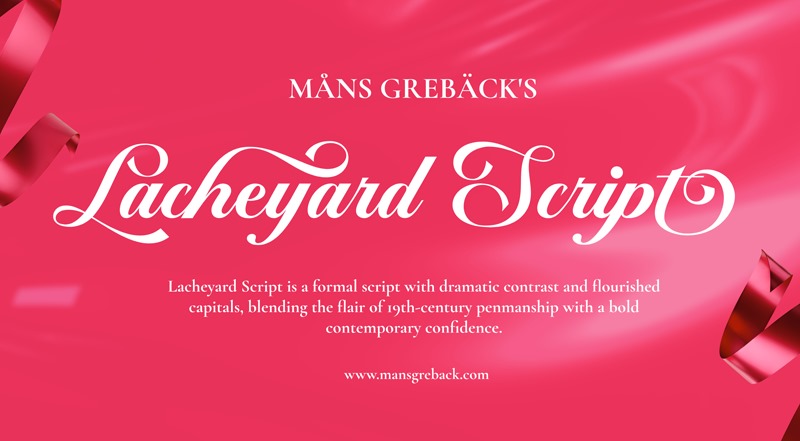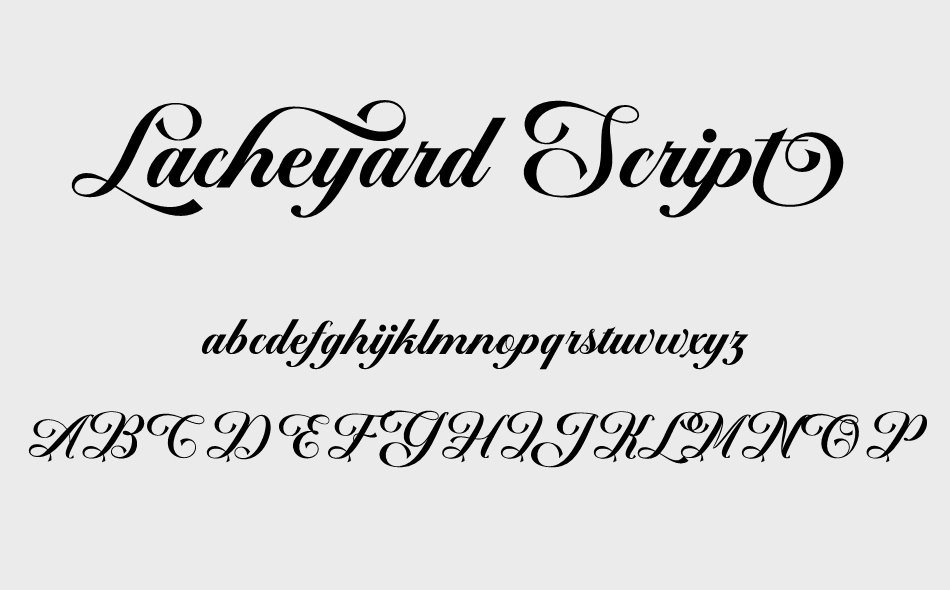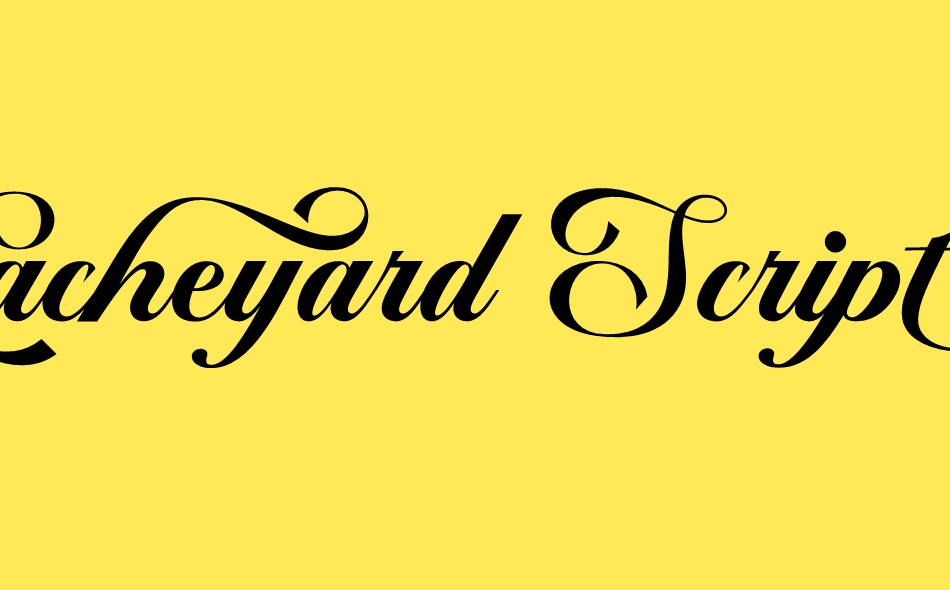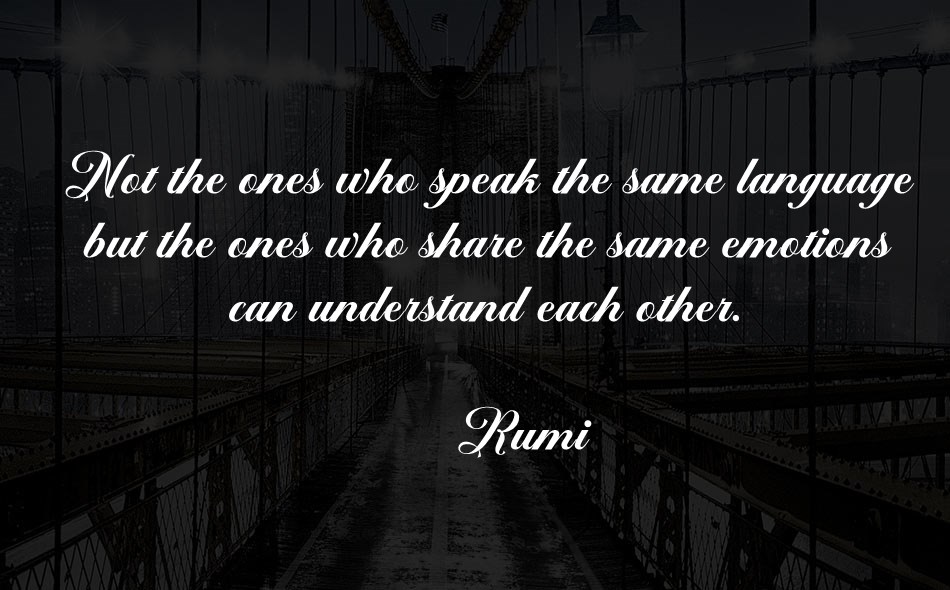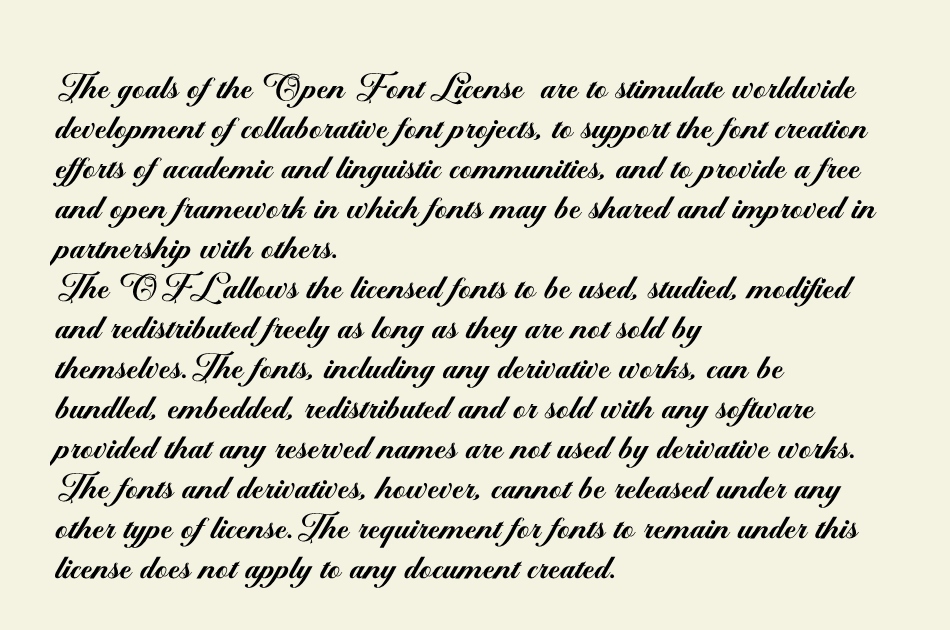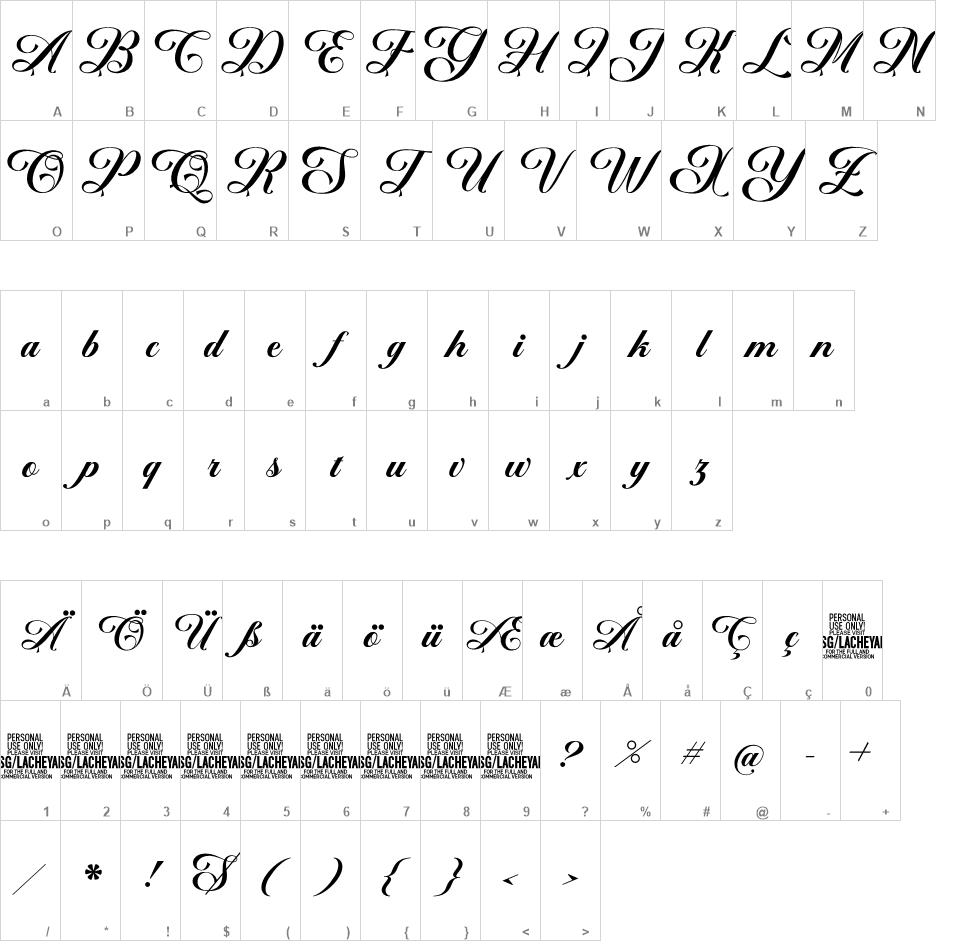
Lacheyard Script font
Lacheyard Script is a formal script with dramatic contrast and flourished capitals, blending the flair of 19th-century penmanship with a bold contemporary confidence.
The uppercase letters are lavishly looped and embellished, yet carefully balanced for readability. Lowercase characters are elegant and flowing, with smooth curves that lend themselves to rhythmic writing.
Lacheyard Script is a formal script with dramatic contrast and flourished capitals, blending the flair of 19th-century penmanship with a bold contemporary confidence.
The uppercase letters are lavishly looped and embellished, yet carefully balanced for readability. Lowercase characters are elegant and flowing, with smooth curves that lend themselves to rhythmic writing. This makes the font ideal for contexts where a sense of class and refinement is central—whether on a wedding invitation, a boutique logo, or a poetic quote framed on a wall. Lacheyard Script feels handwritten, yet carries the discipline of a typographic tool.
The font is built with advanced OpenType functionality and guaranteed top-notch quality, containing stylistic and contextual alternates, ligatures and more automatic and manual features; all to give you full control and customizability.
It has extensive lingual support, covering all Latin-based languages, from North Europa to South Africa, from America to South-East Asia. It contains all characters and symbols you'll ever need, including all punctuation and numbers.
Designed and created by Mans Greback, this typeface continues his tradition of blending artistic form with precision font engineering, resulting in a lettering style that feels both crafted and polished.